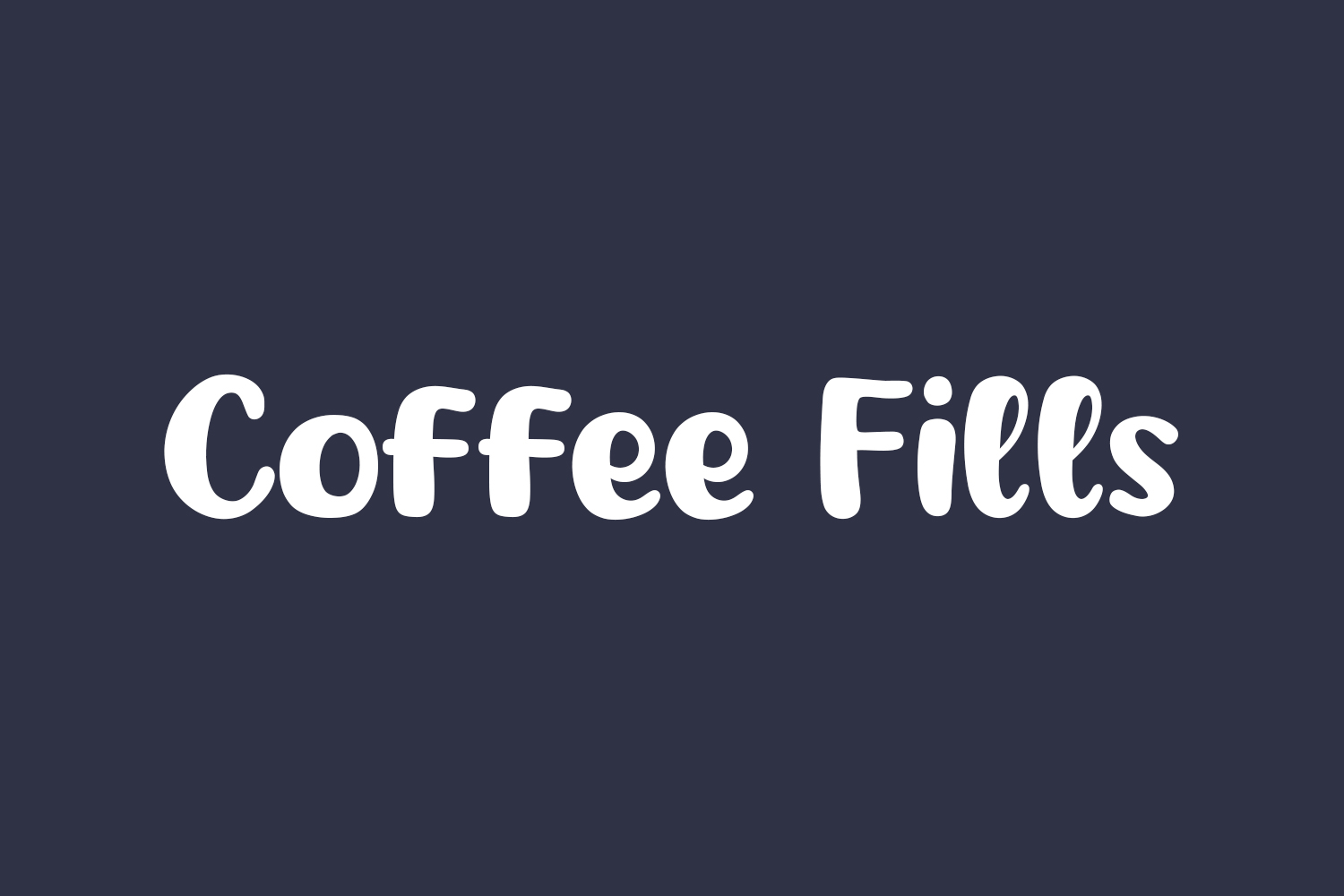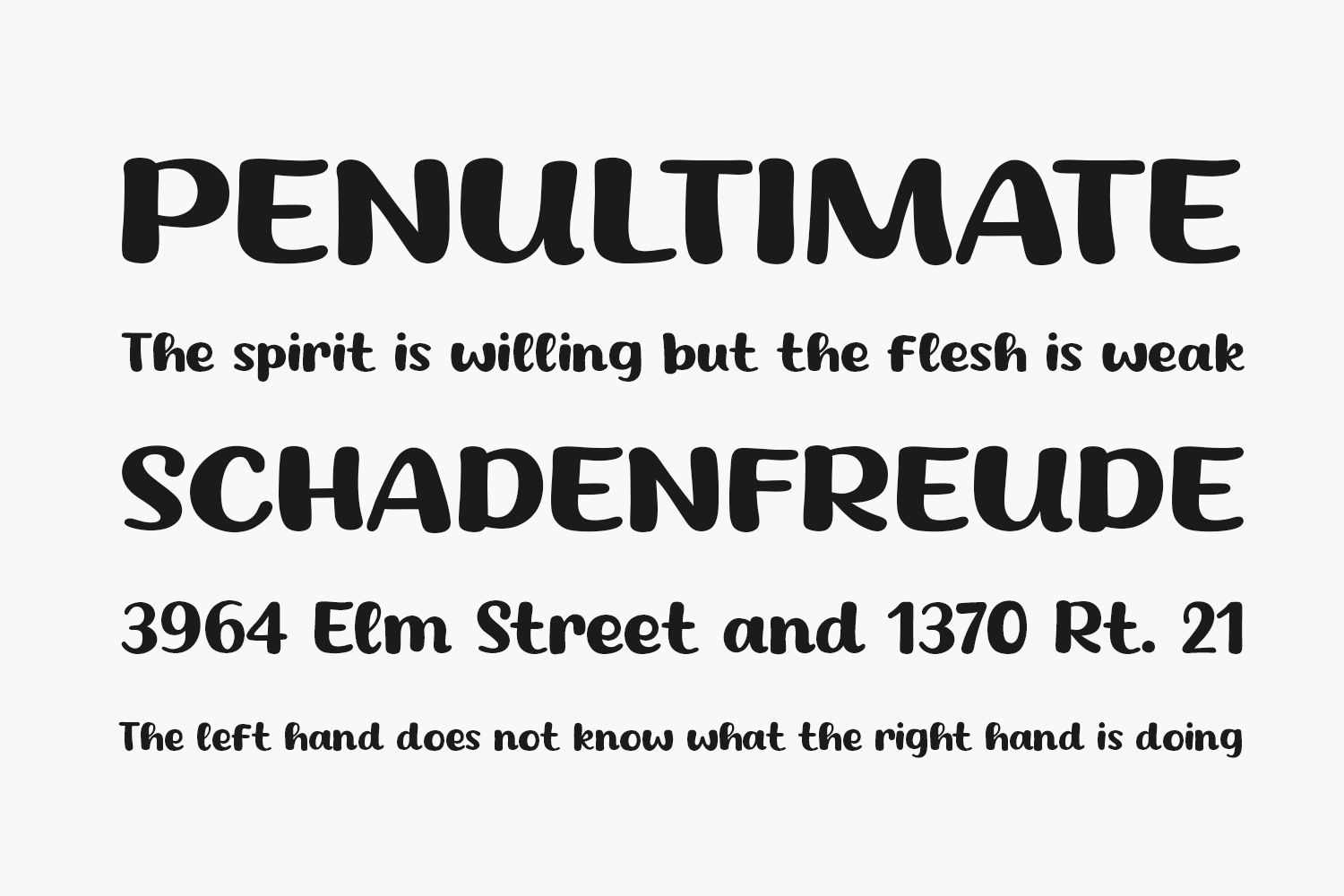
Coffee Fills Free Font – Cute Display Typeface for Café & Lifestyle Design
Coffee Fills is a charming and modern display font designed by Khurasan to bring warmth and personality to your creative projects. With its rounded edges, soft curves, and playful appearance, this free decorative typeface works perfectly for crafting cozy café logos, book covers, greeting cards, stickers, social media graphics, and more. Available in TTF and OTF formats — ideal for designers seeking a cute, approachable font that adds charm to lifestyle branding, packaging, and digital visuals.
Why Choose Coffee Fills?
- Cute & Friendly Style: Rounded letterforms and soft strokes create a warm, lighthearted look perfect for kids’ or lifestyle branding.
- Ideal for Café Branding: Perfect for coffee shops, bakeries, or casual food brands needing a cozy tone.
Where to Use Coffee Fills?
Coffee Fills shines across a variety of creative applications:
- Logos & Branding: Adds warmth to brand identities for cafés, toy brands, or handmade studios needing a friendly tone.
- Book Covers & Titles: Perfect for children’s books, journals, or quote-based designs with a fun and inviting feel.
- Packaging Design: Great for product labels on mugs, notebooks, candles, or candy wrappers requiring a sweet appearance.
- Social Media Graphics: Creates bold text overlays for Instagram Stories, Pinterest pins, TikTok videos, and YouTube banners.
- Poster & Billboard Design: Designed for high visibility — makes headlines pop in event flyers or outdoor visuals.
Design Tips with Coffee Fills